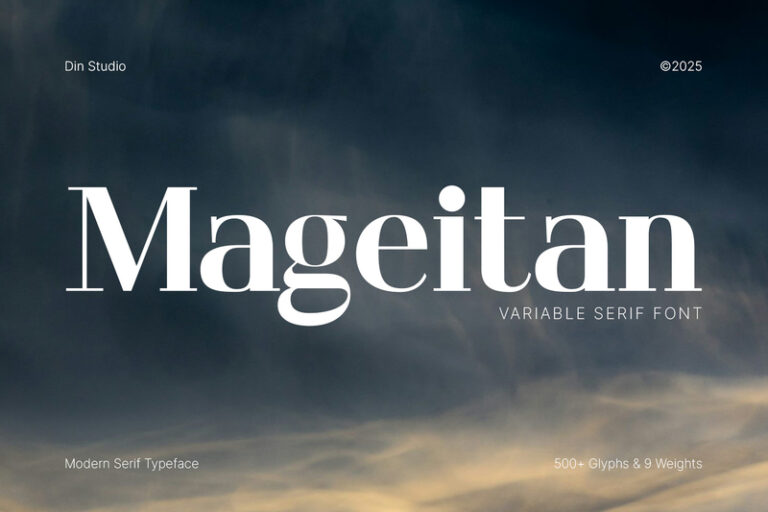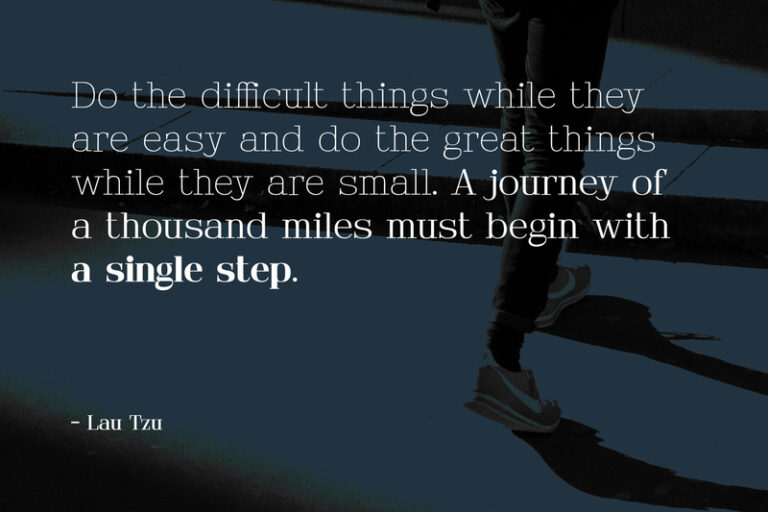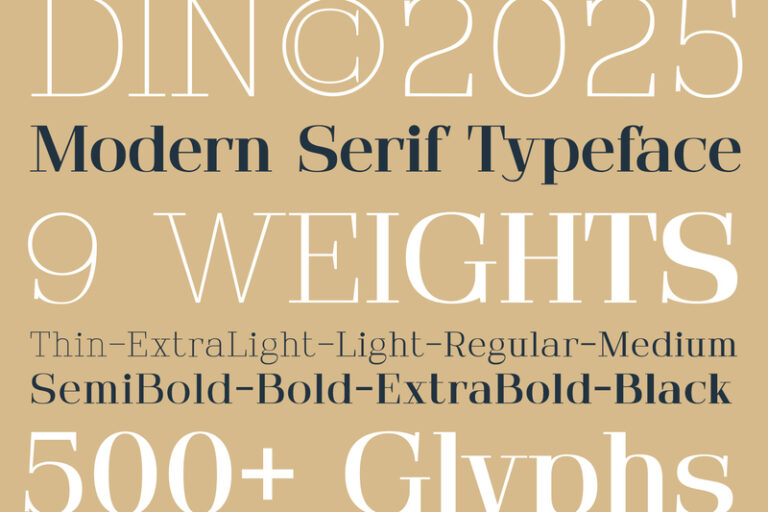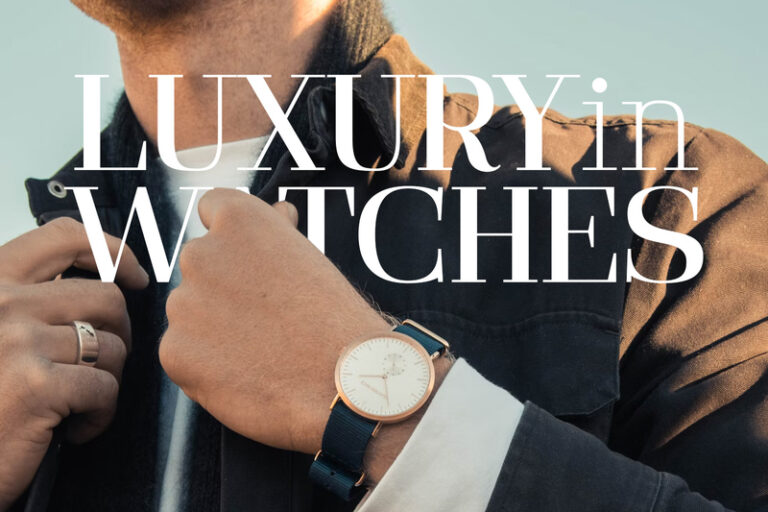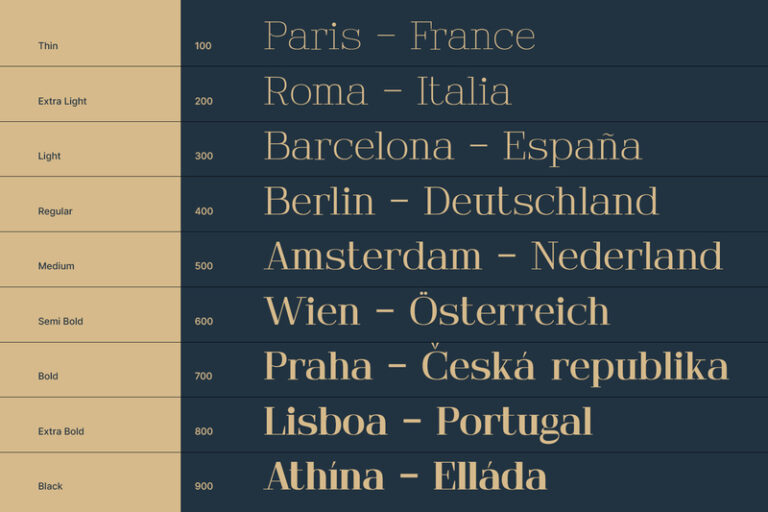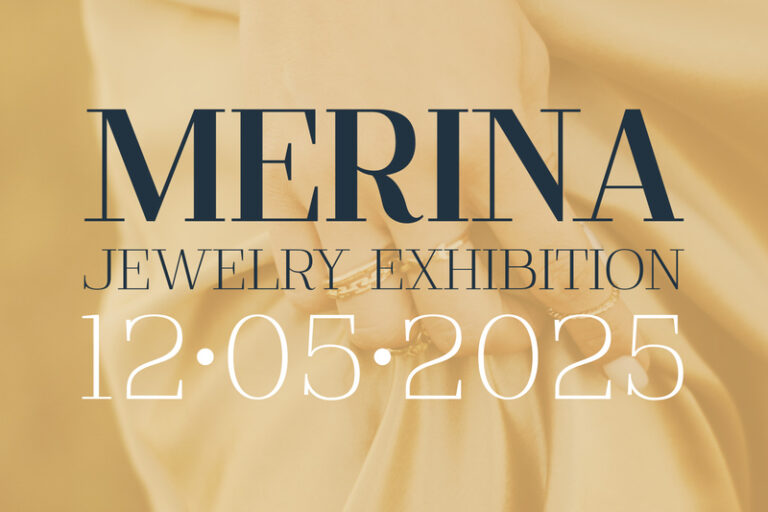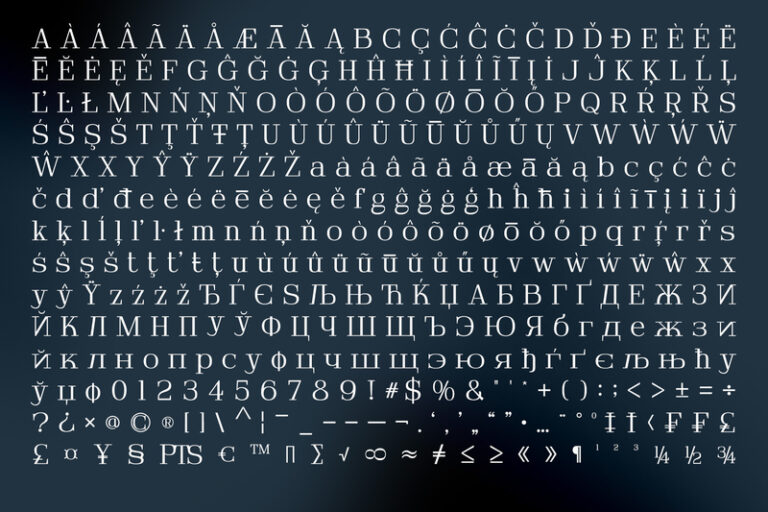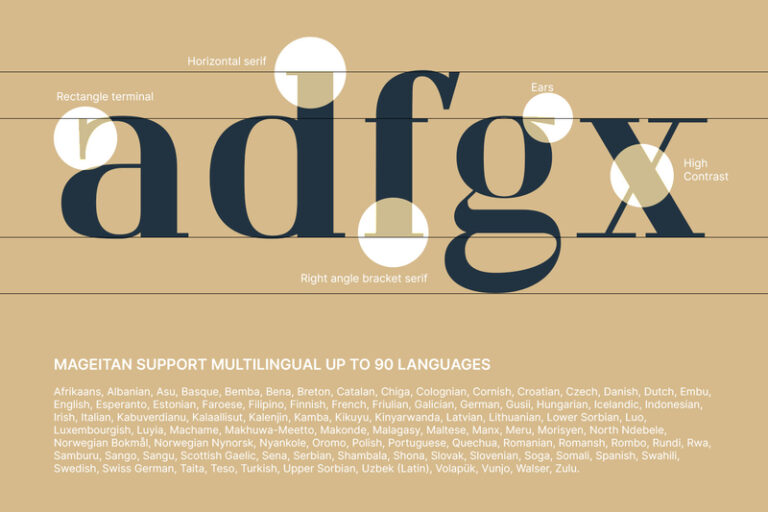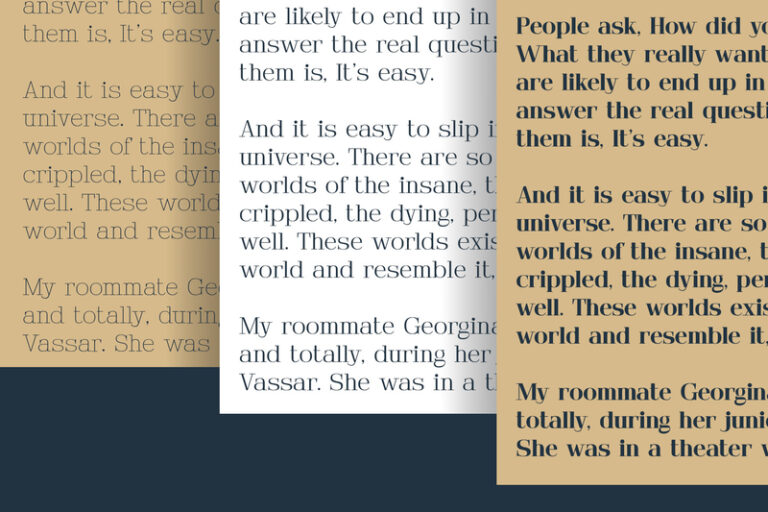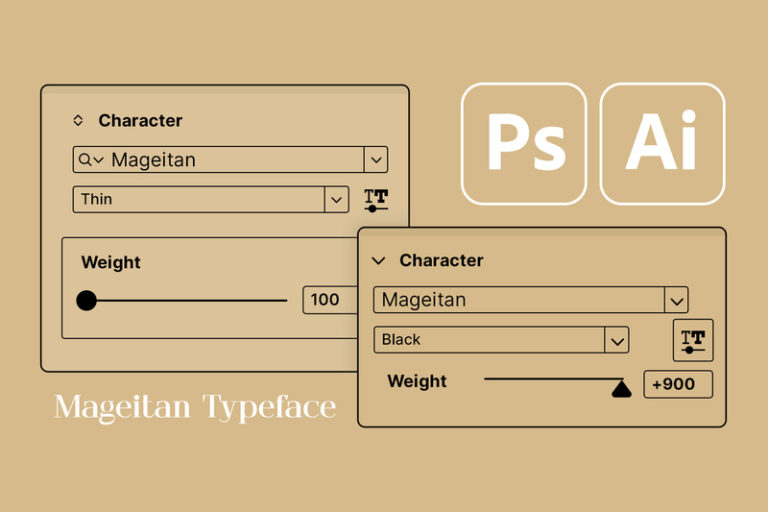
Mageitan – Modern Hairline Serif Font Family
Mageitan is a refined serif font family that artfully balances simplicity, modernity, and elegance. Featuring nine meticulously crafted weights, from delicate Thin to commanding Black, Mageitan offers remarkable versatility for a wide range of design applications. Its carefully considered letterforms blend crisp, clean lines with subtle, graceful details, creating a contemporary aesthetic while honoring timeless typographic tradition. Mageitan delivers a confident, understated charm that adapts seamlessly to your creative vision. In addition, enjoy the features here.
Mageitan fits in bold branding, packaging, posters, headlines, editorial designs, and many more designs. Find out more ways to use this font by taking a look at the font preview.